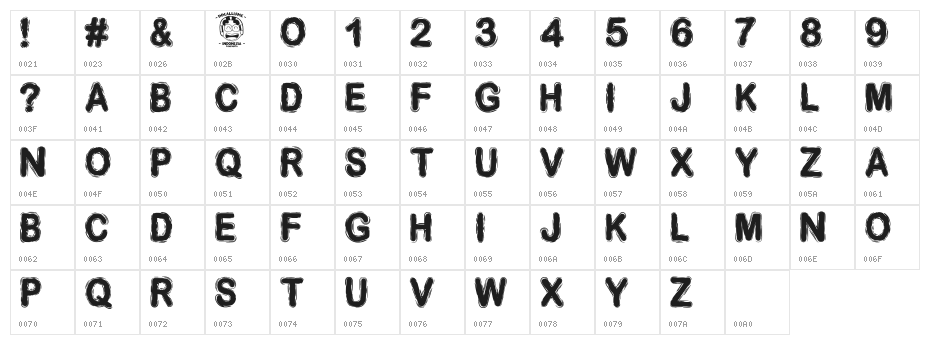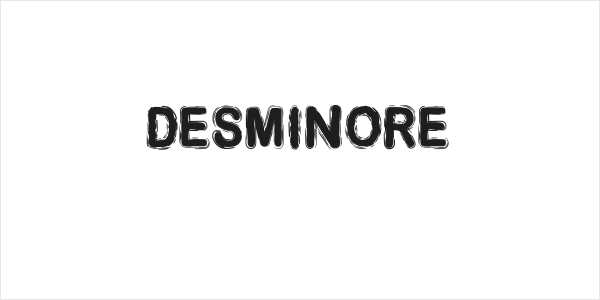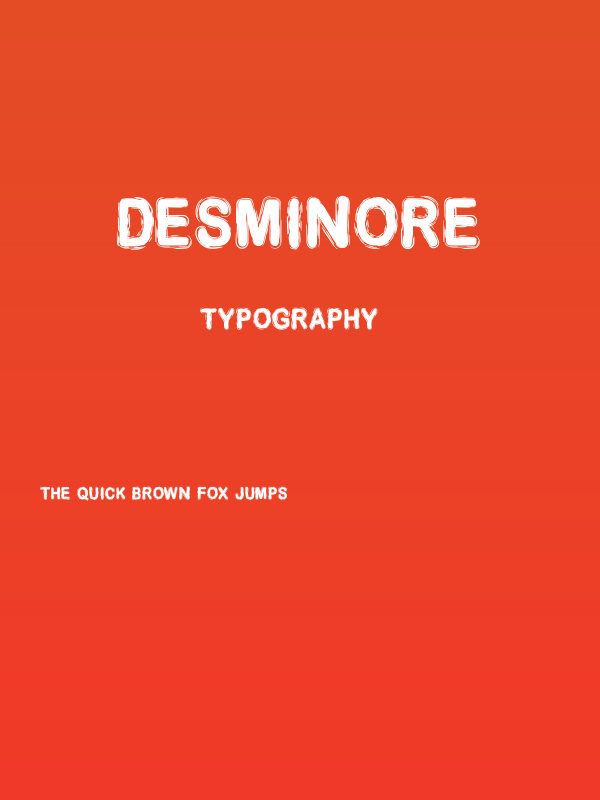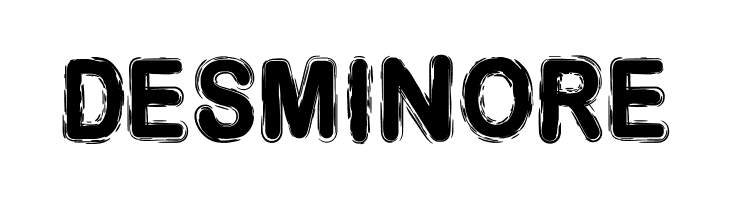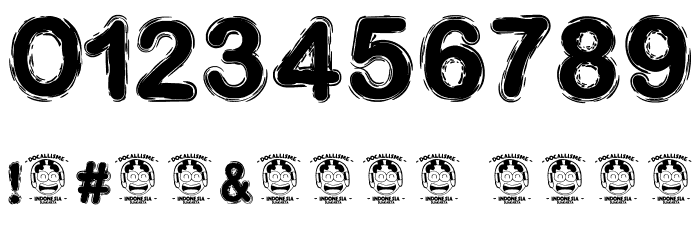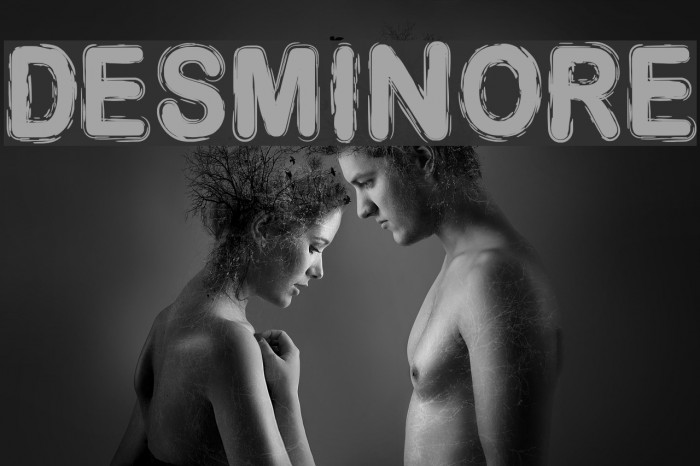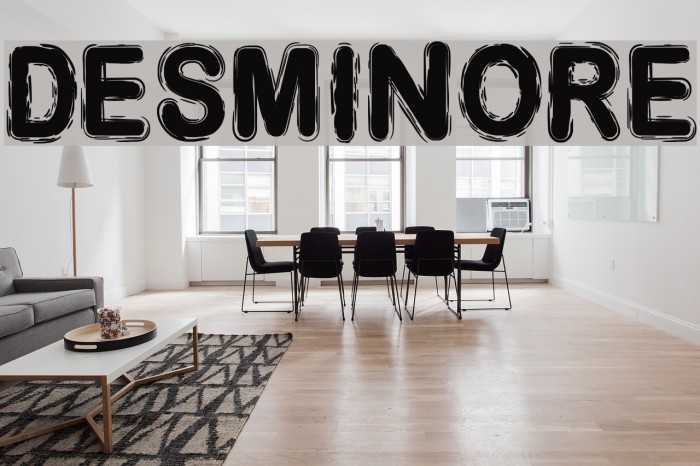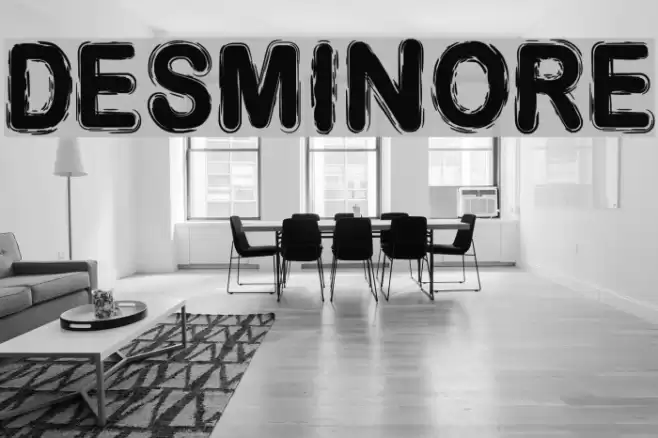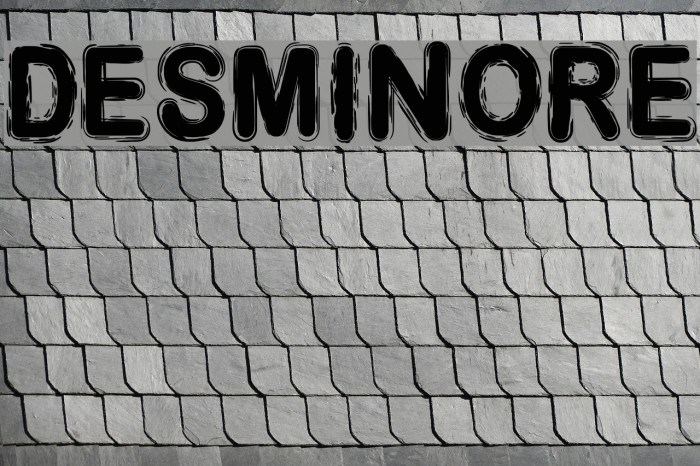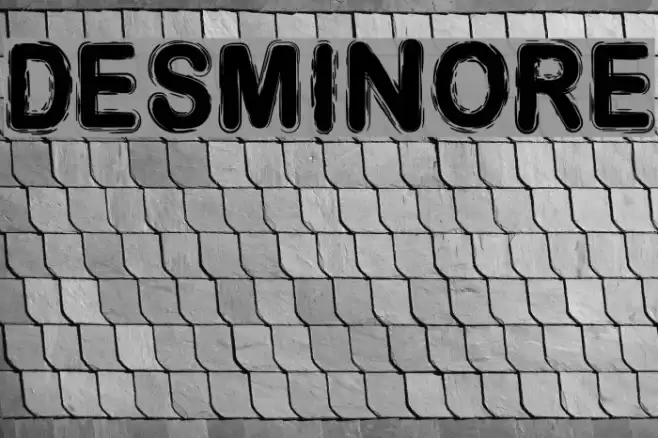
DESMINORE Font
DESMINORE Description
This font features a bold and artistic design with a hand-drawn aesthetic. Each character is outlined with a rough, sketch-like texture that gives it a unique, organic feel. The letters are uppercase and numerals are included, with a consistent style that maintains readability while adding a creative flair. The font's playful and dynamic appearance makes it suitable for projects that require a touch of whimsy and individuality. It is ideal for use in designs that aim to stand out and capture attention with its distinctive and eye-catching style.
| Overall Style | Artistic, Playful |
| Proposed Projects | Ideal for posters, creative branding, children's books, and artistic projects. |